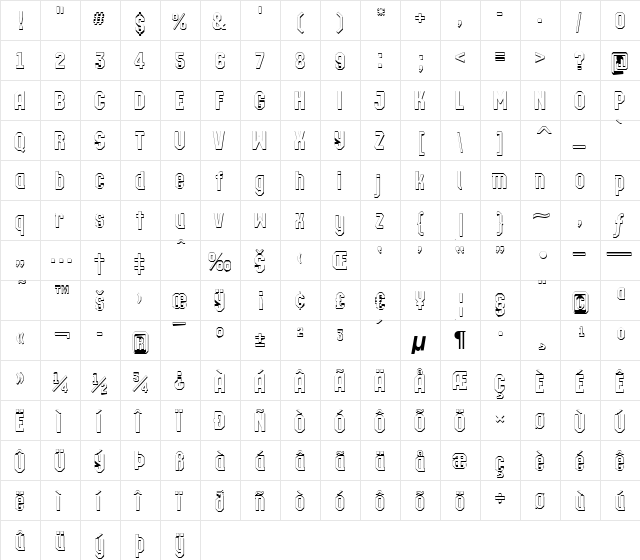
a_Technics3D DemiBold
| Designer | W.Chufarofsky & M.Slutsker |
Design Context for a_Technics3D Typeface
a_Technics3D has a distinctly futuristic character, with geometric precision and clean angles that feel at home in technology, gaming, and sci-fi contexts. Its bold stroke weight gives it real presence on the page.